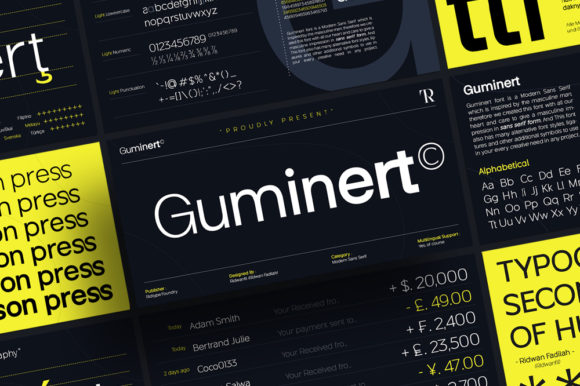
Prepare to be captivated by the essence of modernity and elegance with Guminert, a sans serif font that exudes sophistication and clarity. Crafted with meticulous attention to detail by Ridwanfil, this font family is a true gem, poised to revolutionize your creative endeavors.
Guminert's inherent charm lies in its clean lines, balanced proportions, and timeless appeal. Its unwavering commitment to minimalism ensures effortless readability and versatility, making it an ideal choice for a wide range of design projects, from sleek resumes and captivating presentations to engaging social media posts and eye-catching logos.
As a modern font, Guminert possesses an inherent ability to elevate any design concept with its understated yet impactful presence. Its sharp edges convey a sense of precision and professionalism, while its subtle curves exude a touch of elegance and grace. Whether you're seeking to craft a modern CV, showcase your expertise in a captivating presentation, or captivate your audience with stunning visuals, Guminert stands ready to amplify your message with its timeless allure.
Beyond its aesthetic appeal, Guminert is a testament to functionality and adaptability. Seamlessly scalable to various sizes without compromising clarity, this font ensures flawless performance across a multitude of platforms and applications. Its crisp and legible character set guarantees effortless readability, even in the most intricate of designs.
But Guminert is more than just a font; it's an invitation to unleash your creativity and transcend the boundaries of conventional design. With its inherent versatility, Guminert empowers you to effortlessly elevate your projects to new heights of sophistication. Its clean lines and minimalist aesthetic provide the perfect canvas for your imagination to run wild, enabling you to create captivating designs that leave a lasting impression.